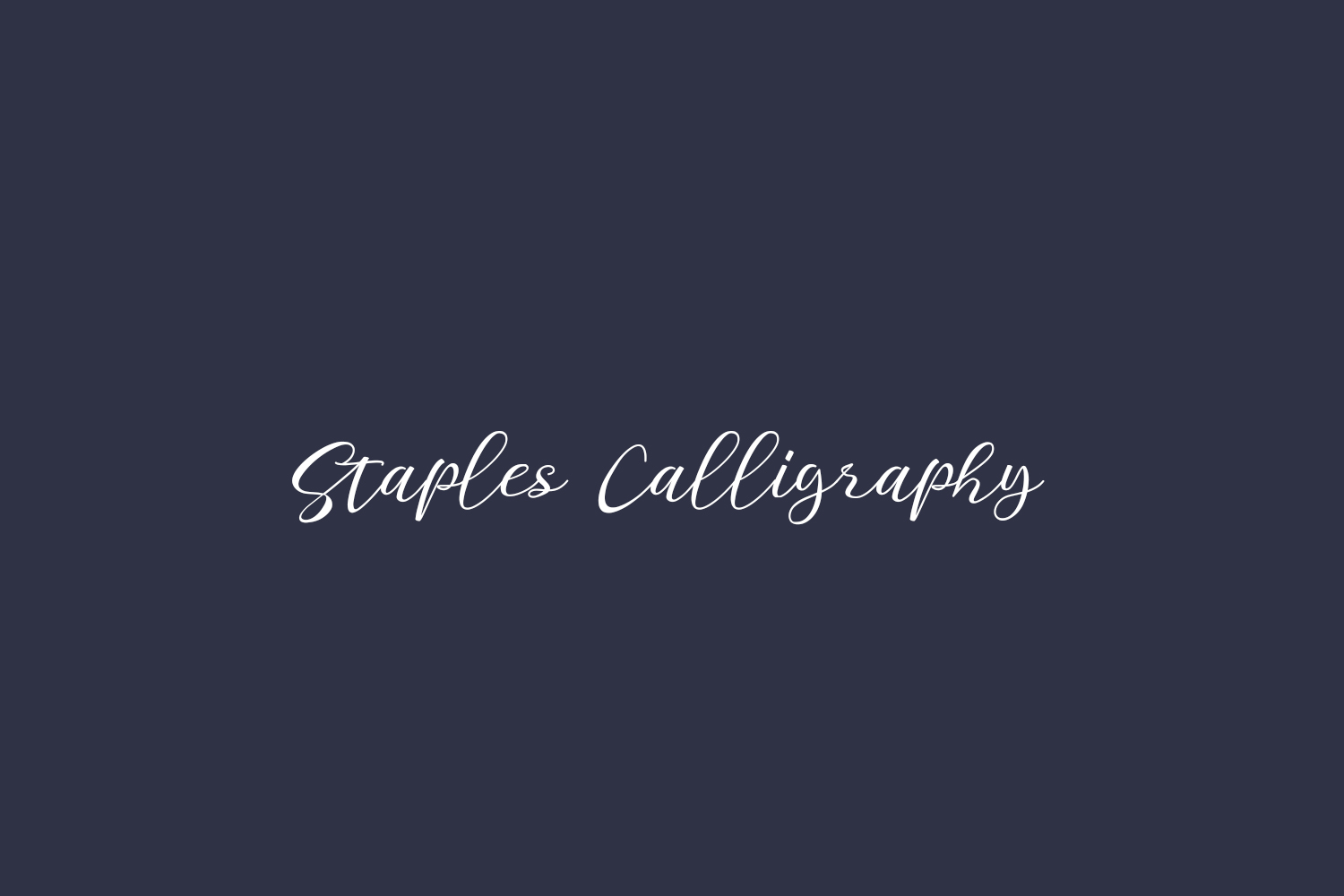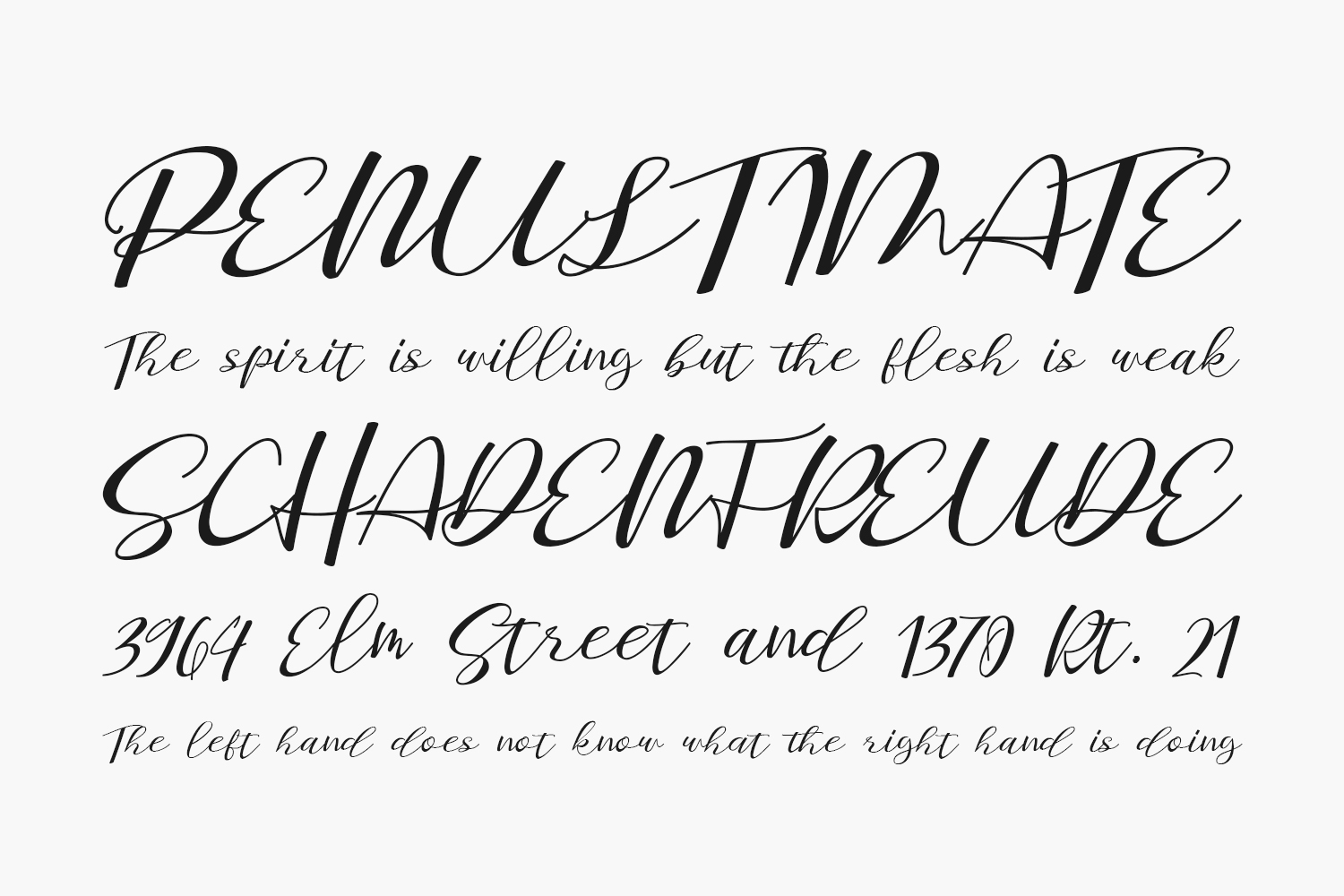
Staples Calligraphy Free Font is a modern script typeface, It’s an ultra-modern typeface with a tasty flow, snap-perfect characters, and start & end swashes. If you want to use for your work this font can be used easily and simply because there are a lot of features in it to contain a complete set of letters lower and uppercase letters, assorted punctuation, numbers, and multilingual support. Please purchase the full version for commercial use. If you have any problem write to the author.